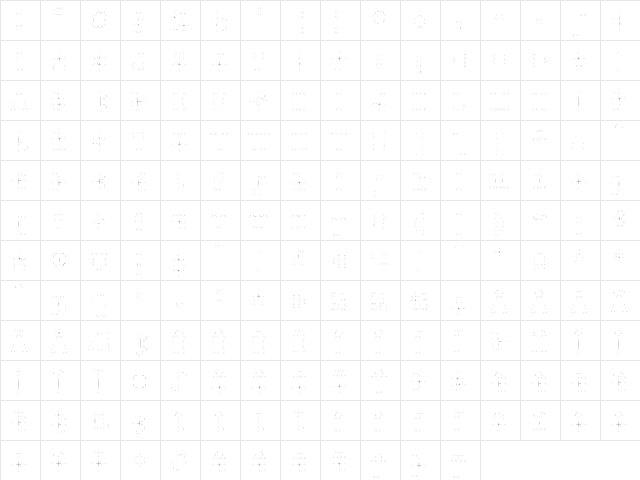
QuicksansAccurateICG Regular
Design Context for QuicksansAccurateICG Typeface
QuicksansAccurateICG takes a measured approach to typography — its balanced proportions and neutral character make it a reliable workhorse for both digital and print work.